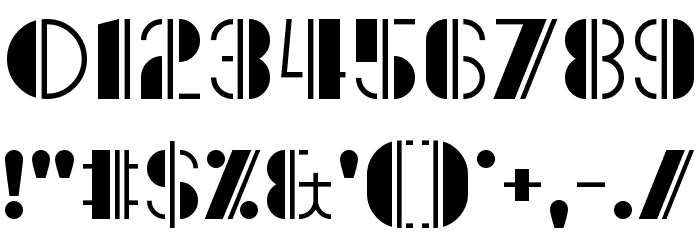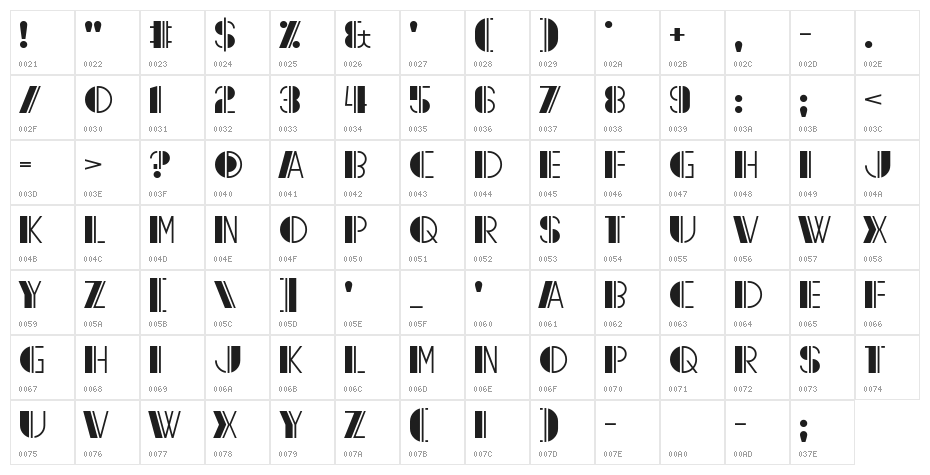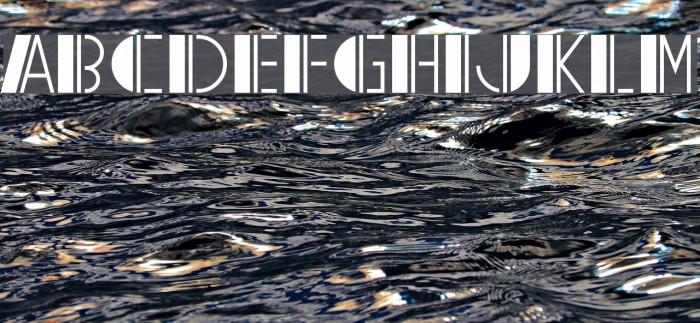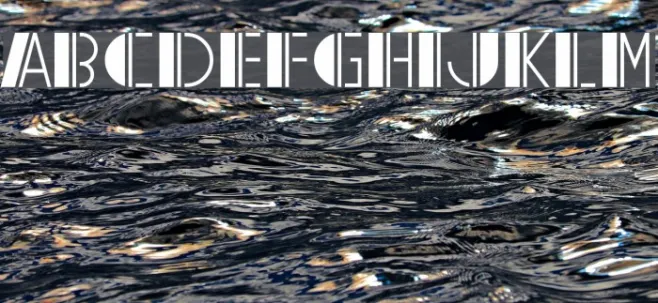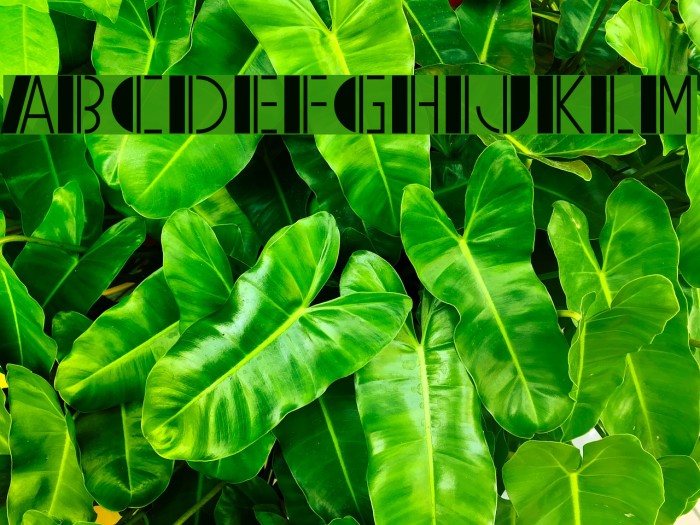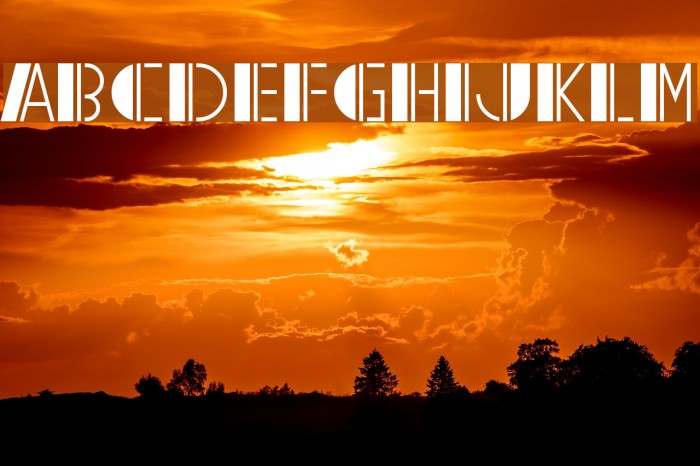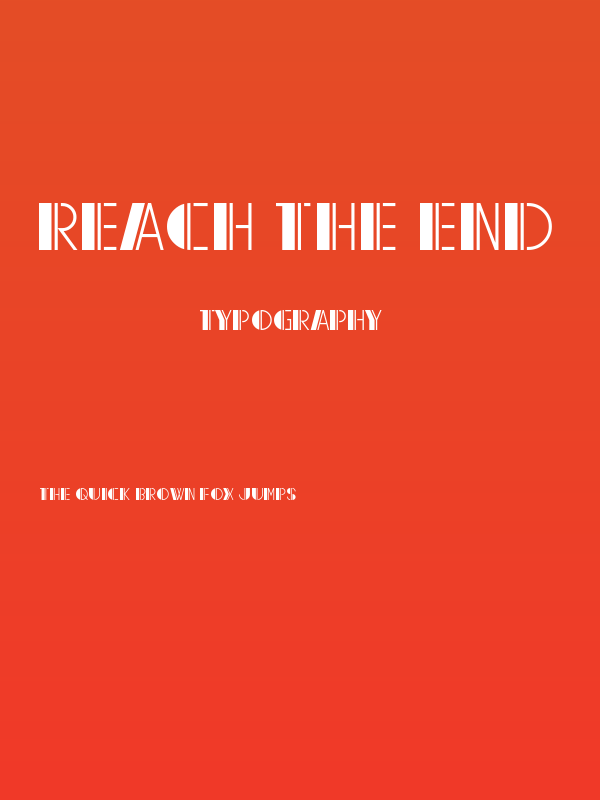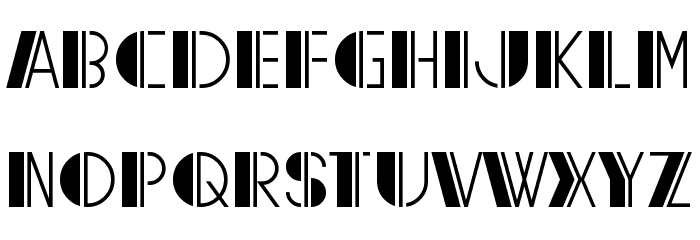
Reach the End Font
Reach the End Description
This font features a bold and striking design with a modern, geometric aesthetic. The characters are constructed with a combination of thick and thin strokes, creating a high contrast that adds visual interest. The use of negative space within the letters gives it a unique, stencil-like appearance. The uppercase and lowercase letters maintain a consistent style, with sharp angles and clean lines. Numbers and special characters follow the same design principles, ensuring uniformity across all glyphs. This font is ideal for making a statement and capturing attention with its distinctive and contemporary look.
| Proposed Projects | Ideal for branding, poster design, headlines, and any project requiring a modern, eye-catching typeface. |